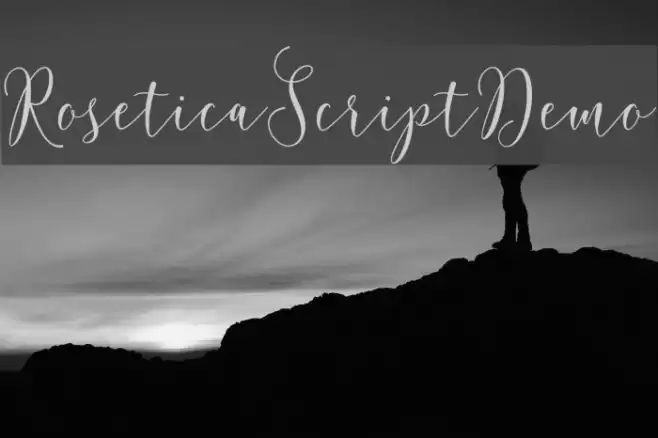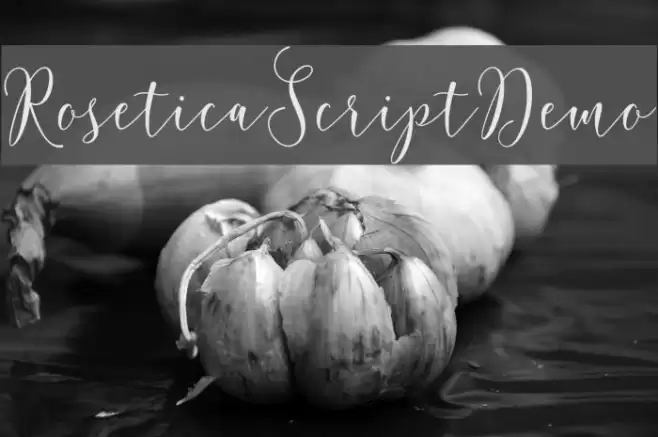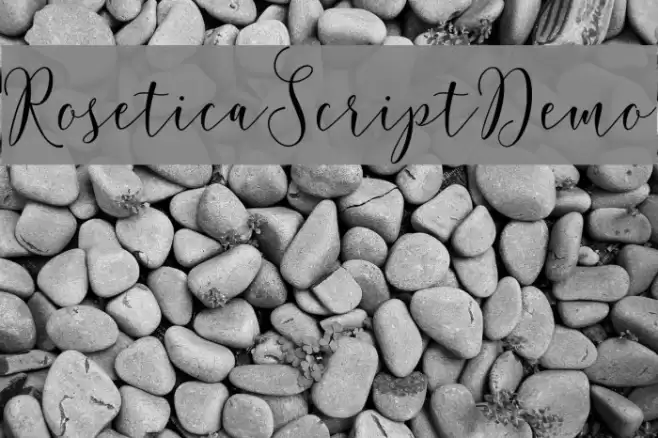
RoseticaScriptDemo Font
RoseticaScriptDemo Description
This elegant script font features a flowing, cursive style with graceful loops and swashes. The uppercase letters are tall and slender, with delicate flourishes that add a touch of sophistication. The lowercase letters maintain a consistent flow, with smooth connections between characters, creating a harmonious and fluid appearance. The font's overall design is reminiscent of traditional calligraphy, yet it retains a modern twist with its clean lines and balanced proportions. The characters are well-spaced, ensuring readability while maintaining an artistic flair. This font is perfect for projects that require a touch of elegance and style.
A graceful script font with elegant loops and modern calligraphic style from Uncategorized fonts.
- Proposed Projects: Ideal for wedding invitations, elegant branding, greeting cards, and decorative quotes.
- Use Case: Logos, Invitations, Decorative text